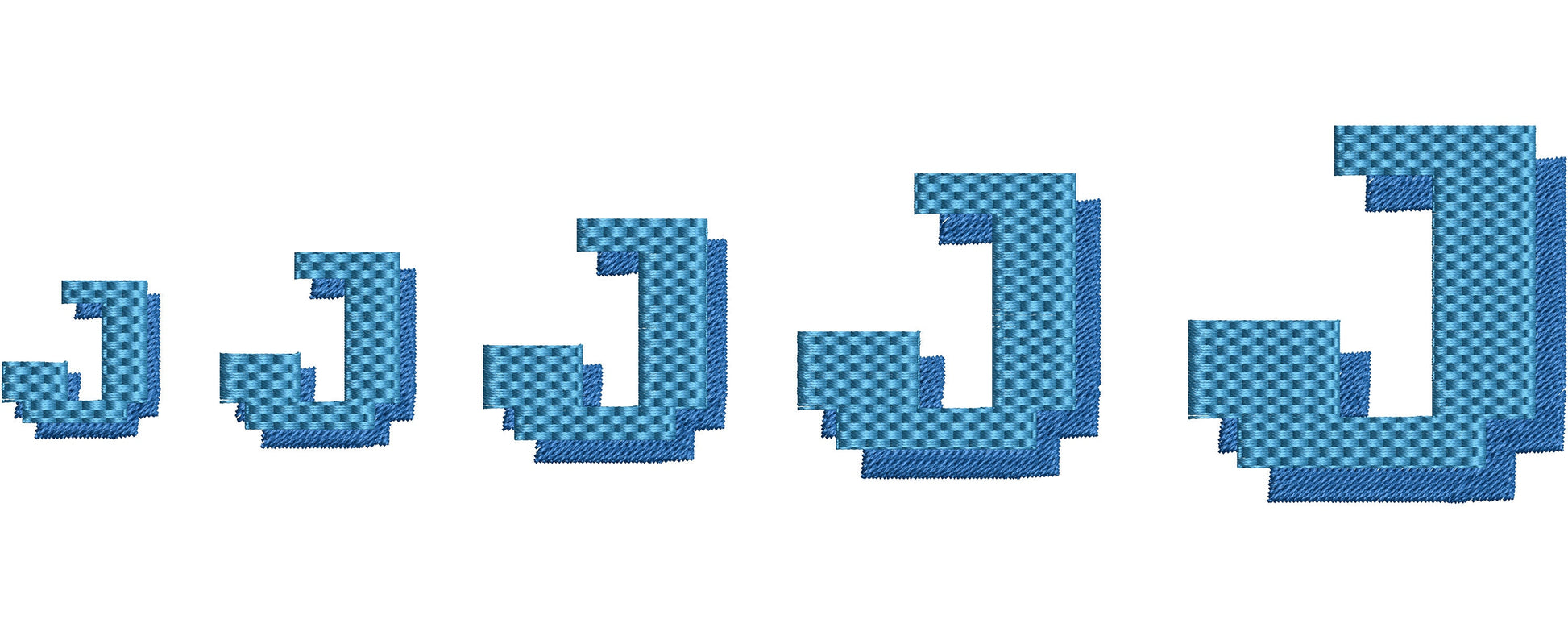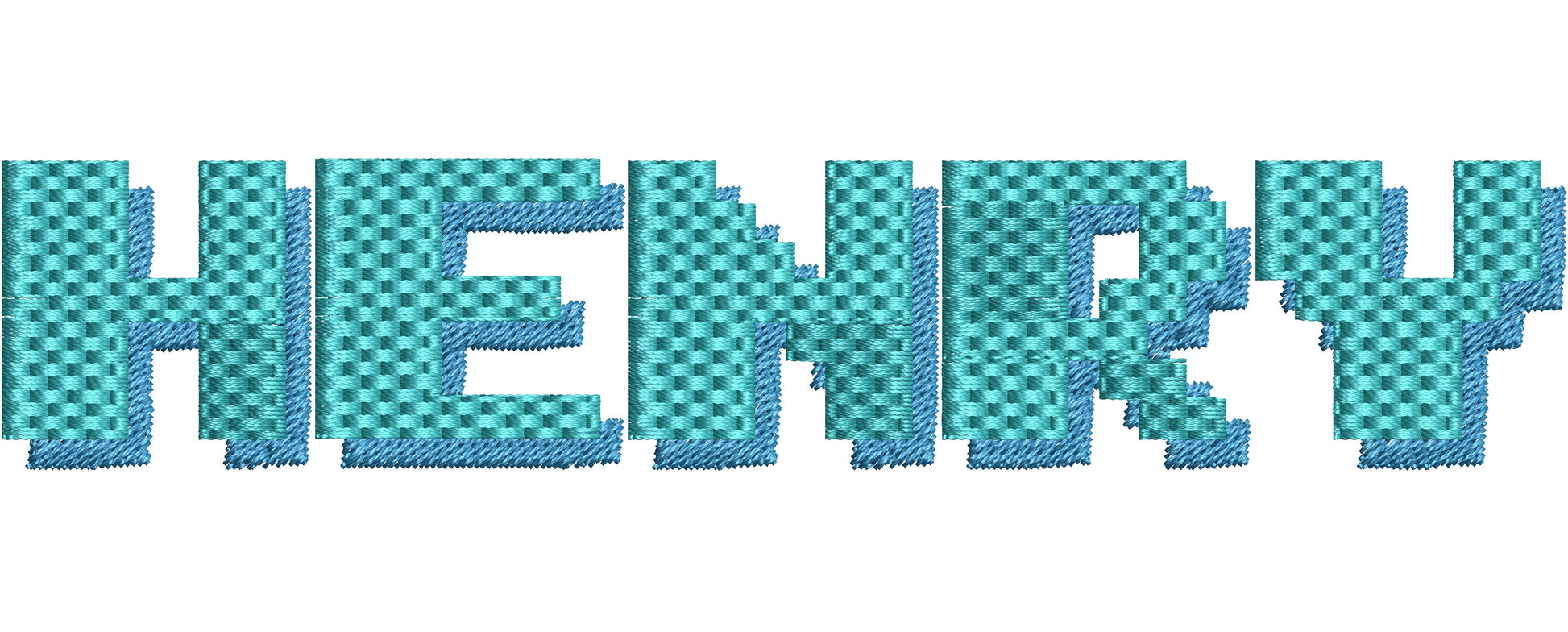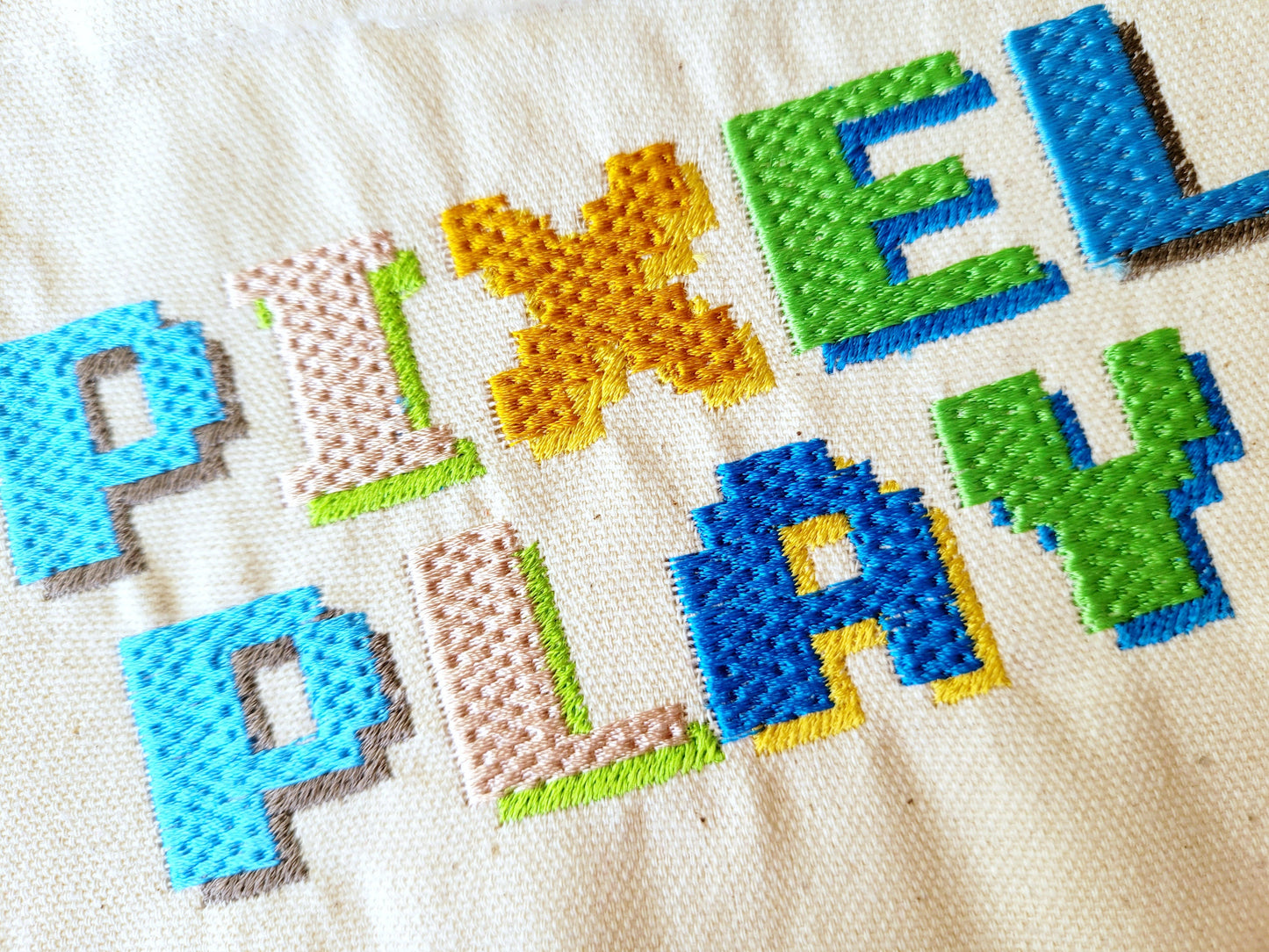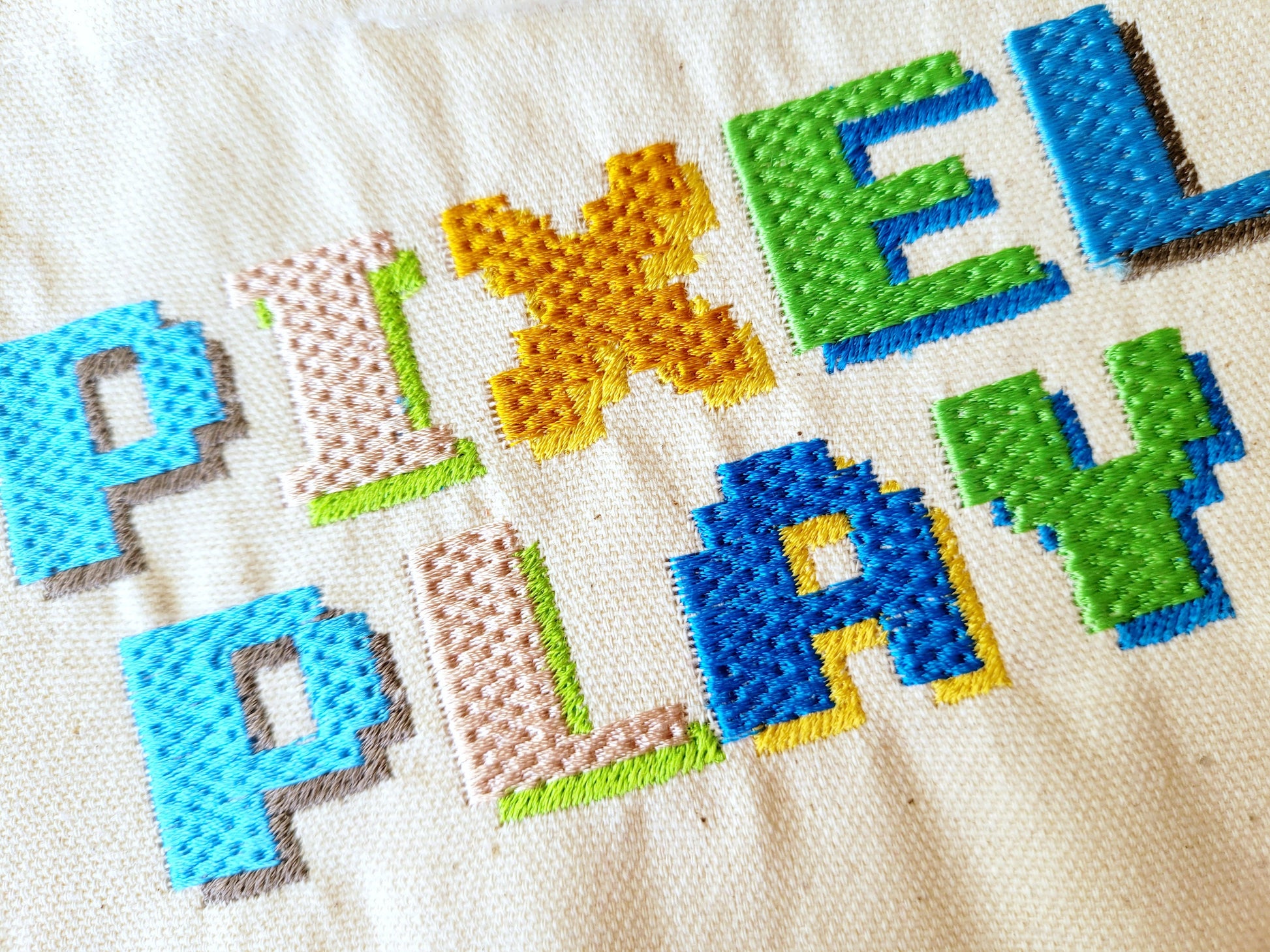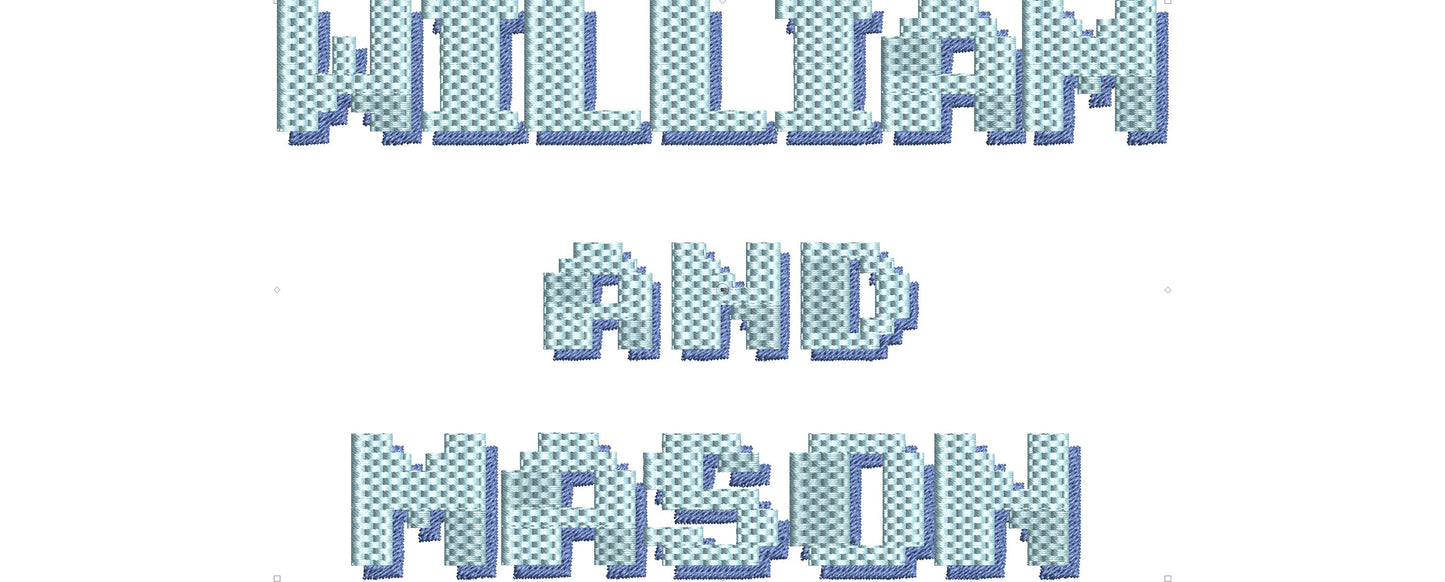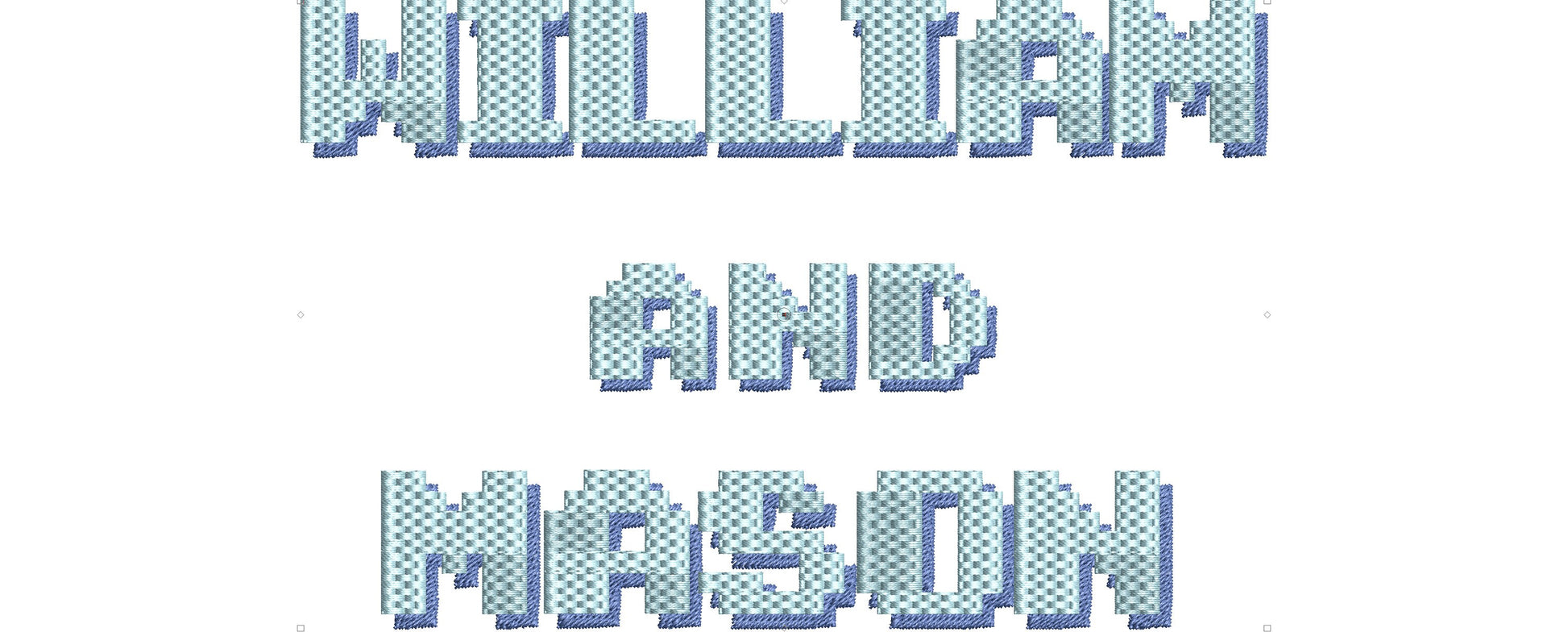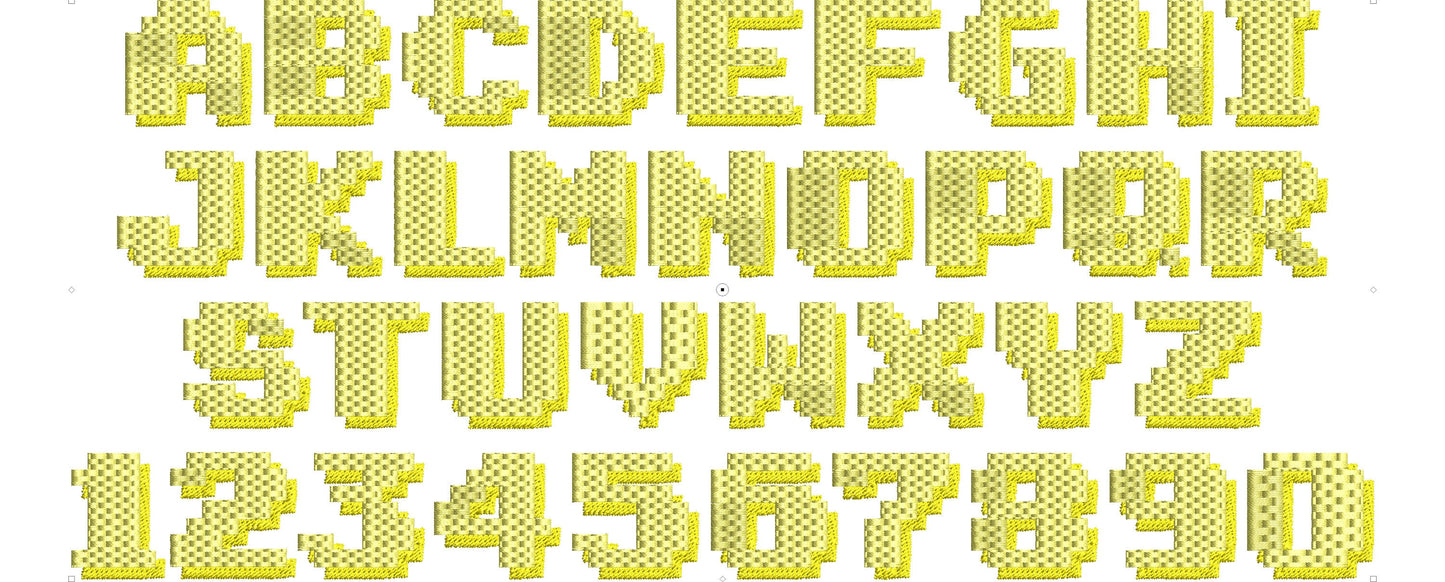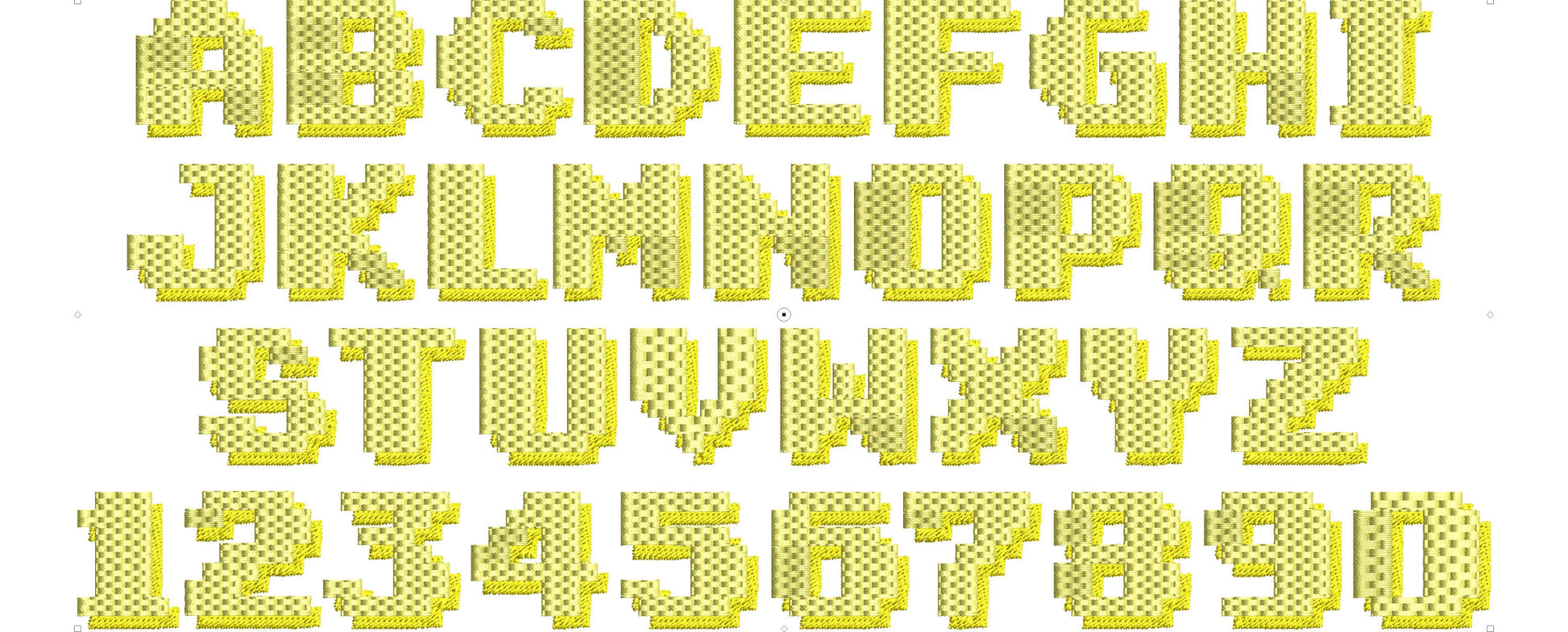
Pixel Miner Bricks Block Type Shadow Font
Pixel miner bricks block type Shadow Font fill stitch machine embroidery designs sport letters numbers with shadow BX font alphabet kids boy
Entire alphabet A-Z, numbers 0-9.
Absolutely amazing quality digitizing ! Seriously do not hesitate to shop filed with this seller. This font is dense, it’s not meant for a tshirt if you’re doing a garment make sure it’s very heavy weight and properly stabilized. I put this on a pencil pouch and used nothing and it did perfectly fine but it was a substantial material.
Love this font - had to do some minecraft sweatshirts and i personalized with this font.
Stitched out super easy and beautiful
This stiched out beautifully on a beach towel!
Beautiful stitch out! This worked wonderfully for my project and I look forward to using this font over and over again!